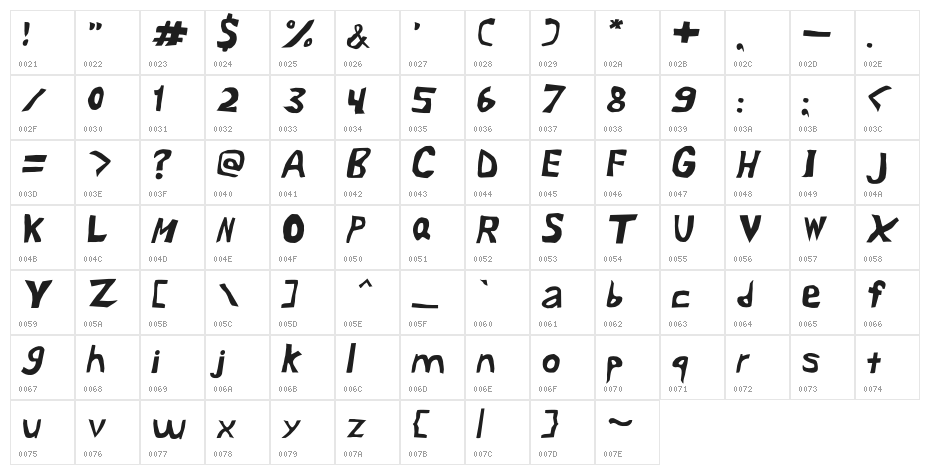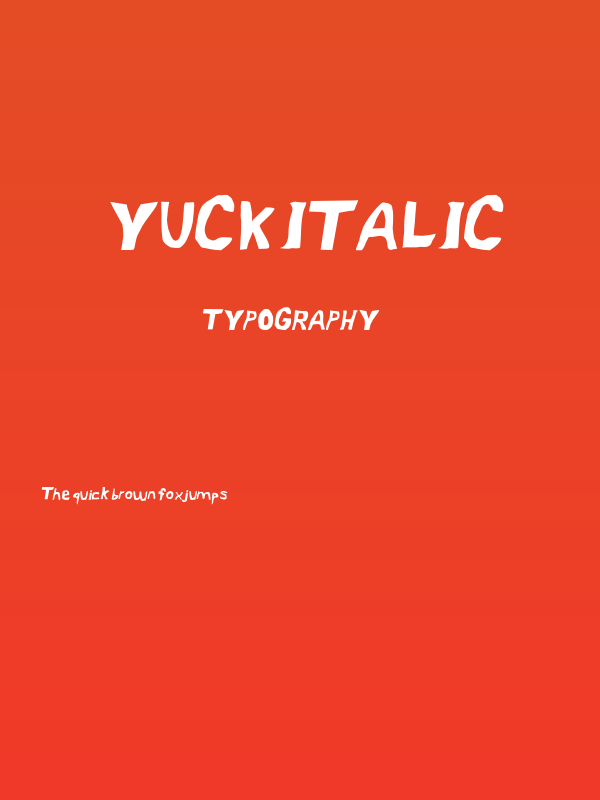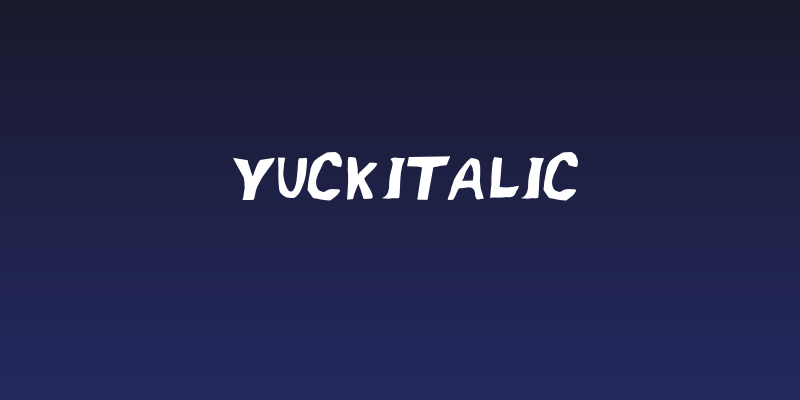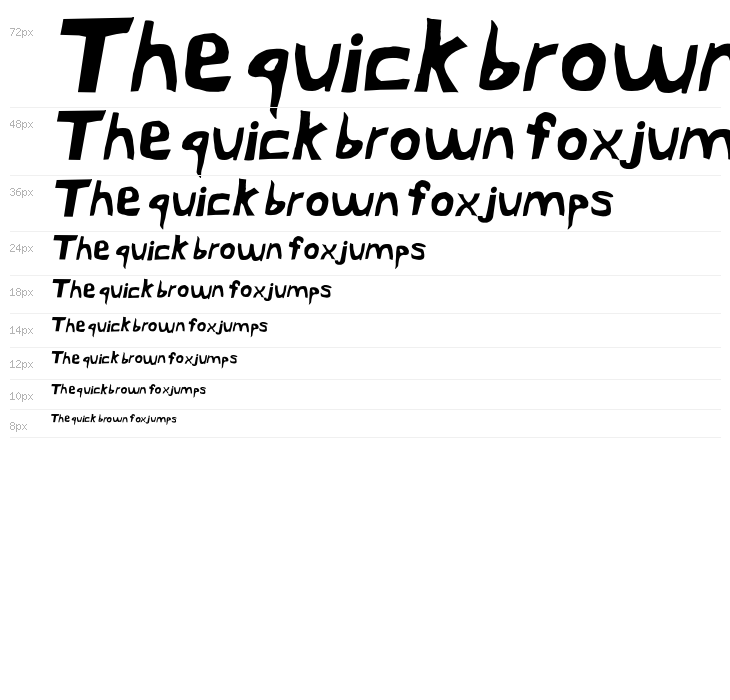
Yuck Italic Font
Yuck Italic Description
This font features a playful and quirky design with a hand-drawn aesthetic. The characters are irregular and slightly slanted, giving a dynamic and informal appearance. The uppercase and lowercase letters maintain a consistent style, with exaggerated curves and angles that add to its whimsical nature. The numbers and special characters follow the same playful theme, making the font suitable for creative and informal projects. The overall look is bold and expressive, capturing attention with its unique and artistic flair.
| Proposed Projects | Ideal for children's books, comic strips, playful branding, and creative posters. |